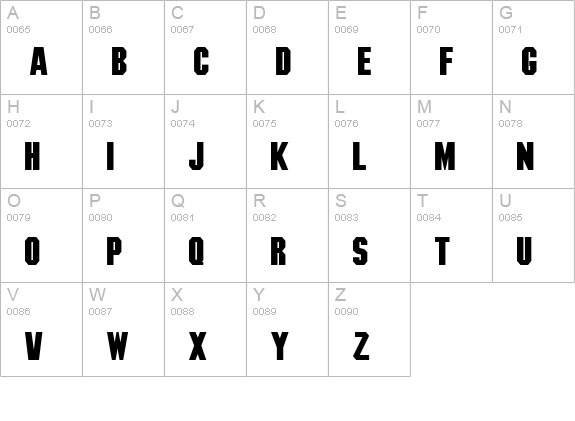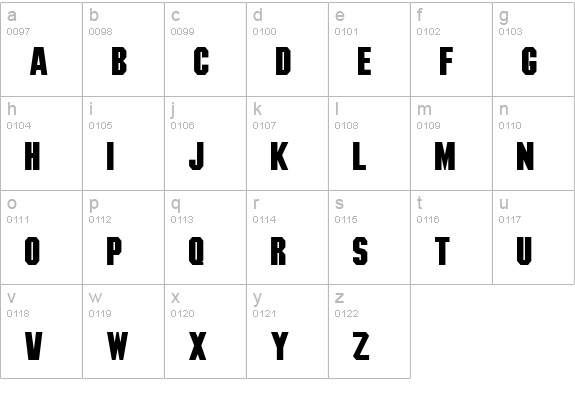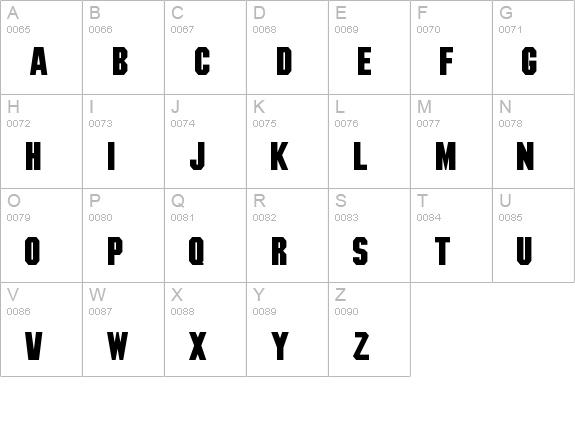
Machined Bold is a strong, high-contrast variant in the Machined typeface family \xE2\x80\x94 well suited to headlines, attention-grabbing titles, and strong calls-to-action.
Introducing Machined Bold, a captivating and striking font that will breathe life into your designs. With its bold and robust appearance, Machined Bold commands attention and exudes a sense of strength and confidence. This versatile font is perfect for a wide range of projects, from headlines and logos to posters and branding materials. Machined Bold features clean lines and sharp edges, giving it a modern and industrial aesthetic. Its bold weight ensures that your text stands out, making a lasting impression on your audience. Whether you're aiming for a sleek and contemporary look or a rugged and powerful vibe, Machined Bold will deliver. What sets Machined Bold apart is not only its eye-catching design but also its accessibility. This amazing font is available for free download at FontsMarket.com. Yes, you read that right - absolutely free! FontsMarket.com is a trusted source for high-quality fonts, and Machined Bold is no exception. Now, you can elevate your designs without breaking the bank. Imagine the possibilities with Machined Bold. From website headers to product packaging, this font will add a touch of professionalism and style to your projects. Its versatility allows it to seamlessly adapt to various design themes, making it a valuable asset for any creative endeavor. Don't miss out on the opportunity to enhance your typography with Machined Bold. Download it for free today at FontsMarket.com and take your designs to the next level. Embrace the boldness, embrace the power, and let Machined Bold be the driving force behind your visual storytelling.